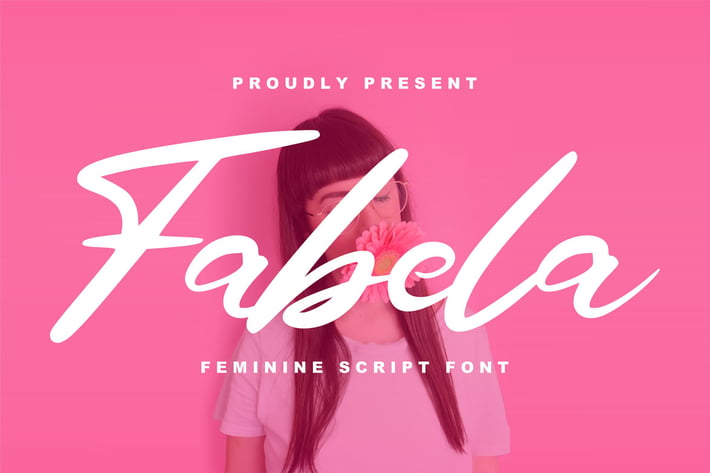
Fabela | Feminie Script Font
Fabela | Feminie Script Font with a calligraphy style, So beautiful on invitation like greeting cards, branding materials, business cards, quotes, posters, and more!